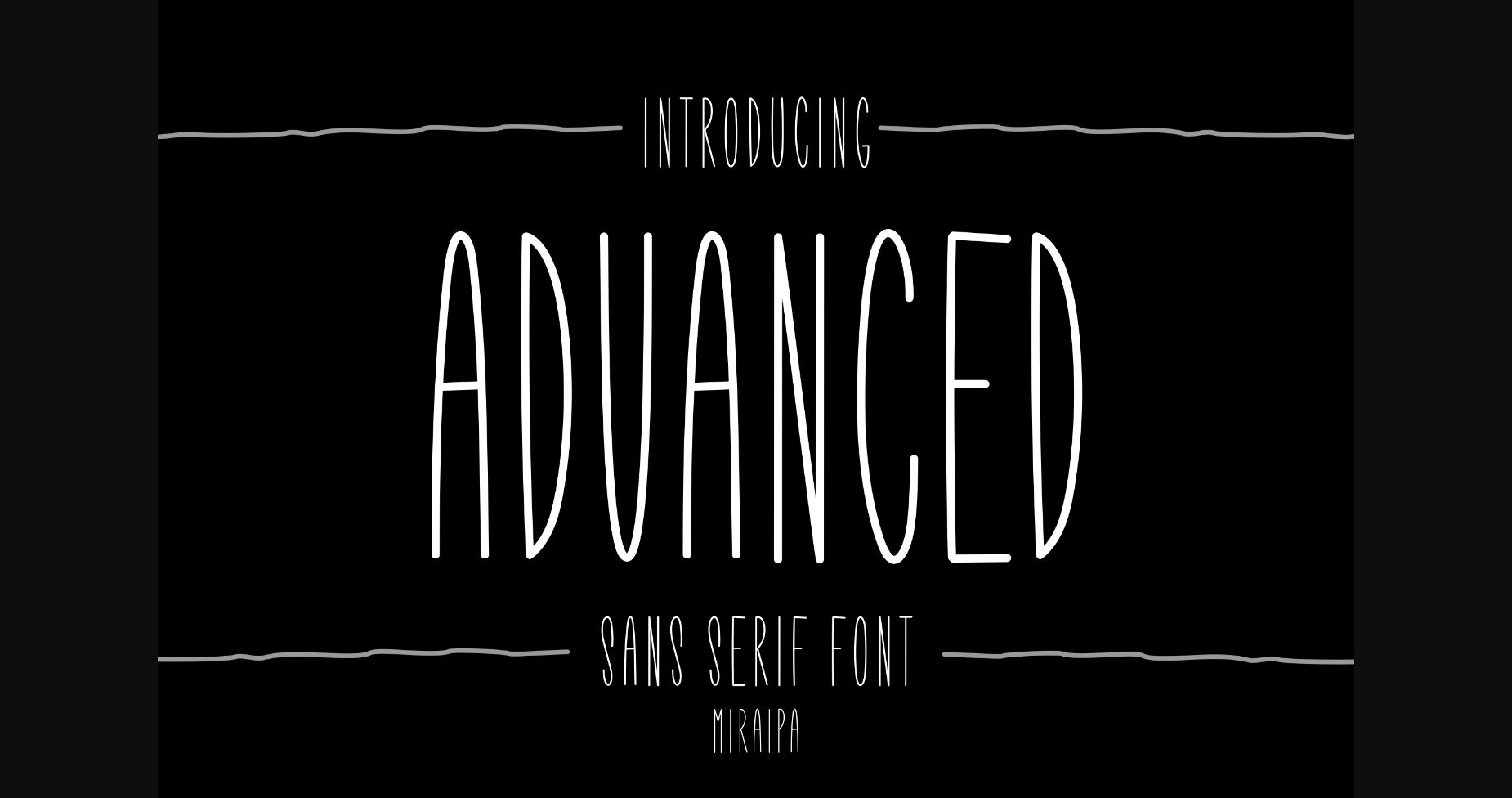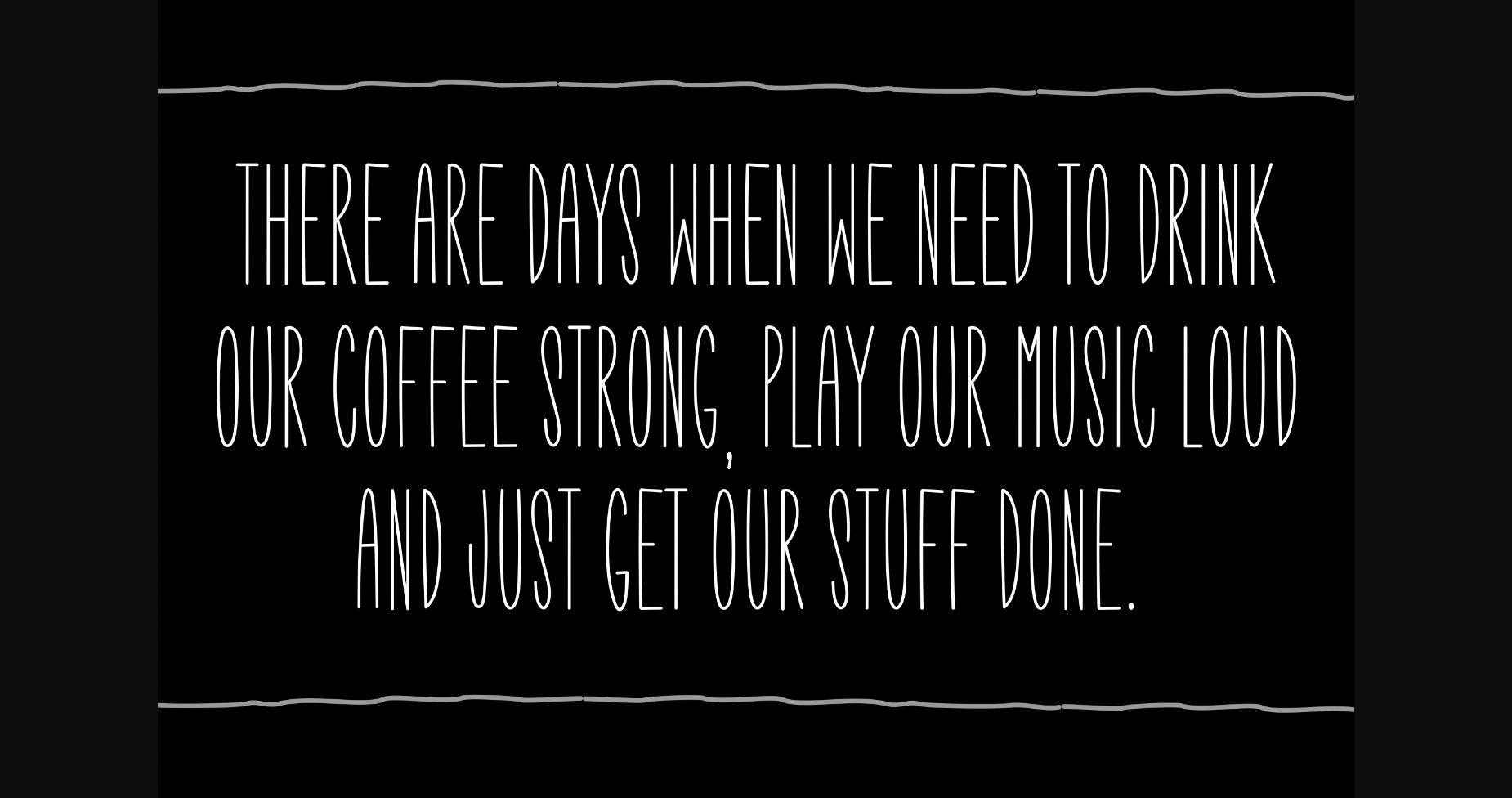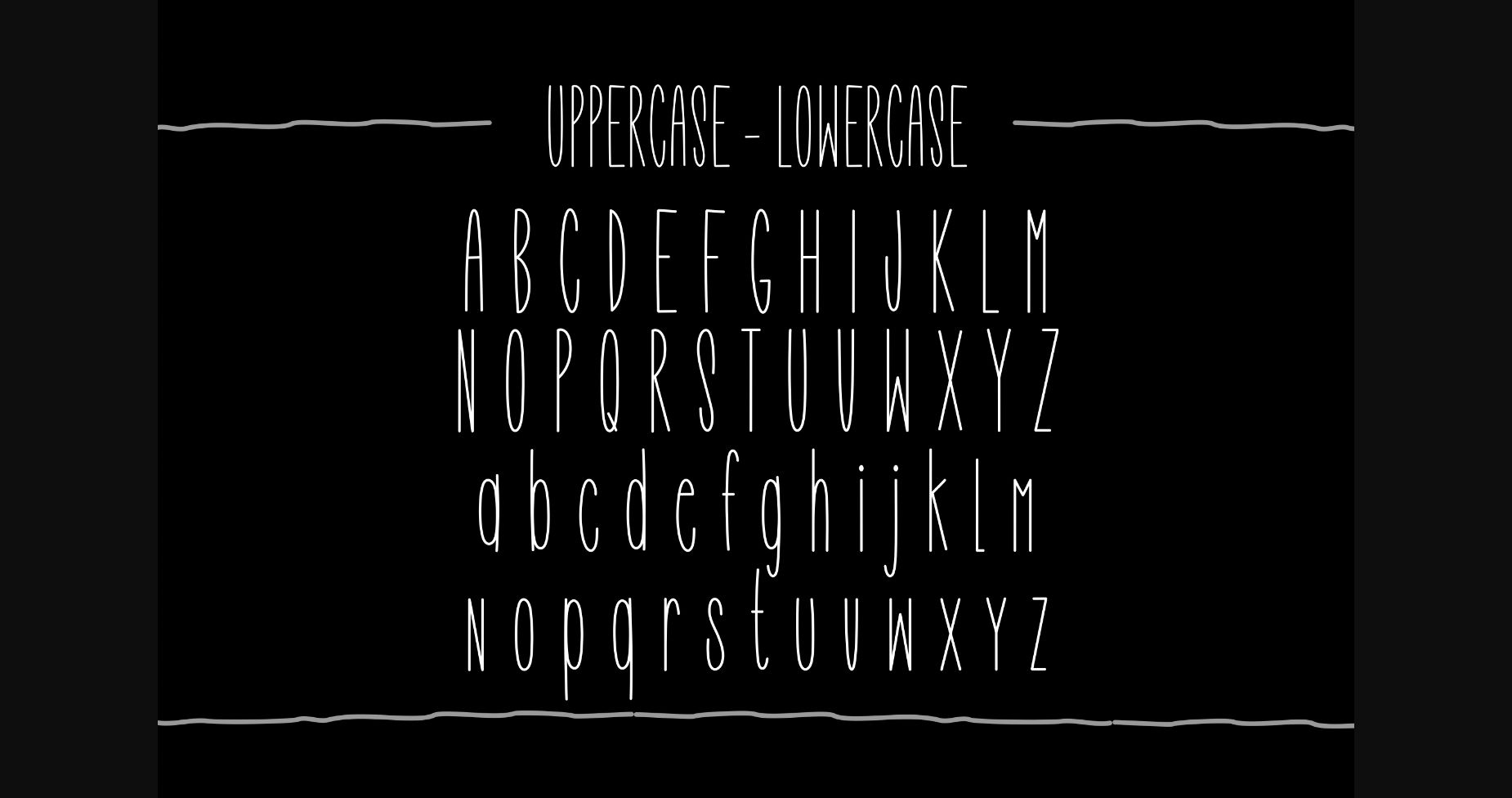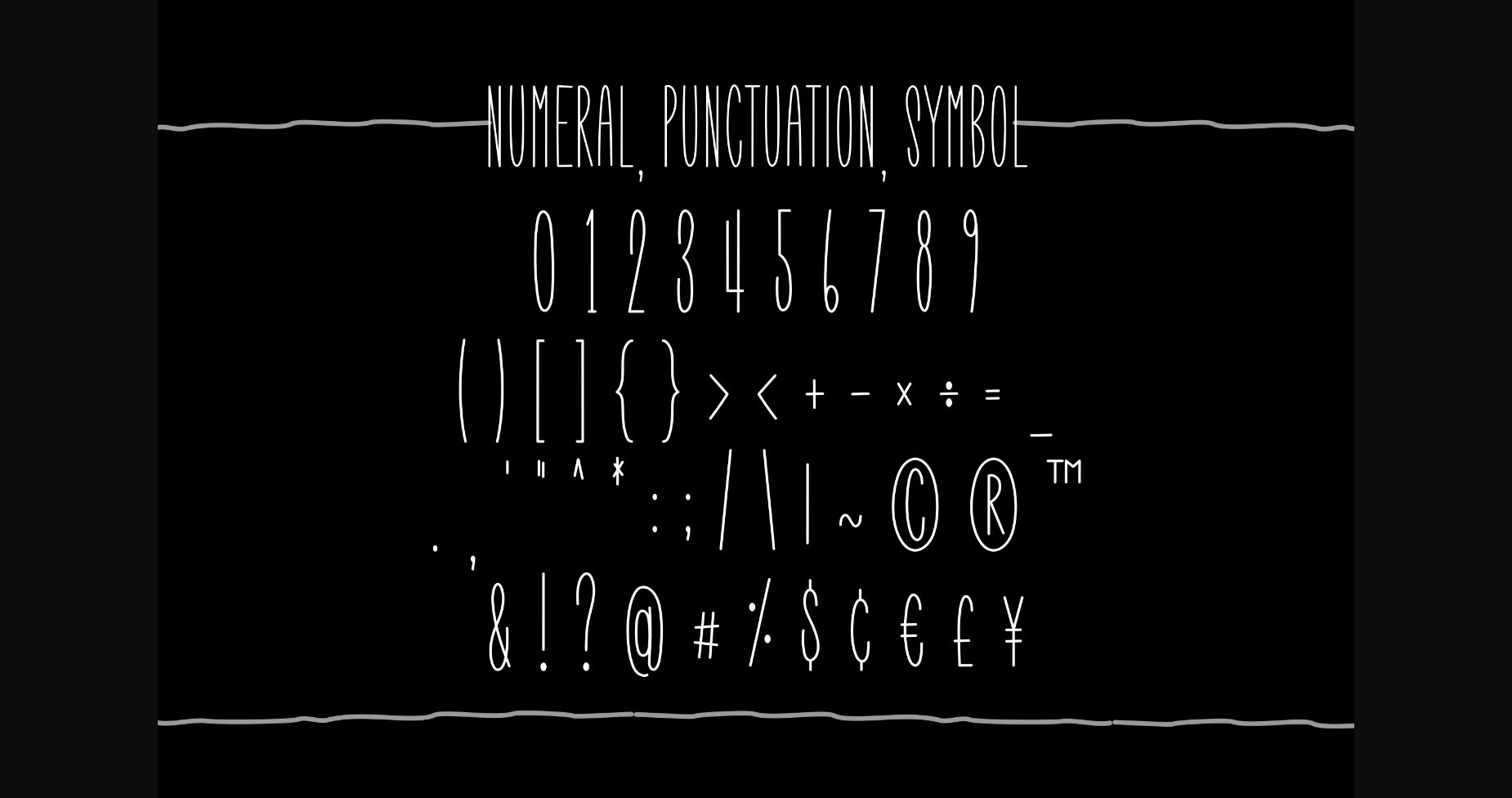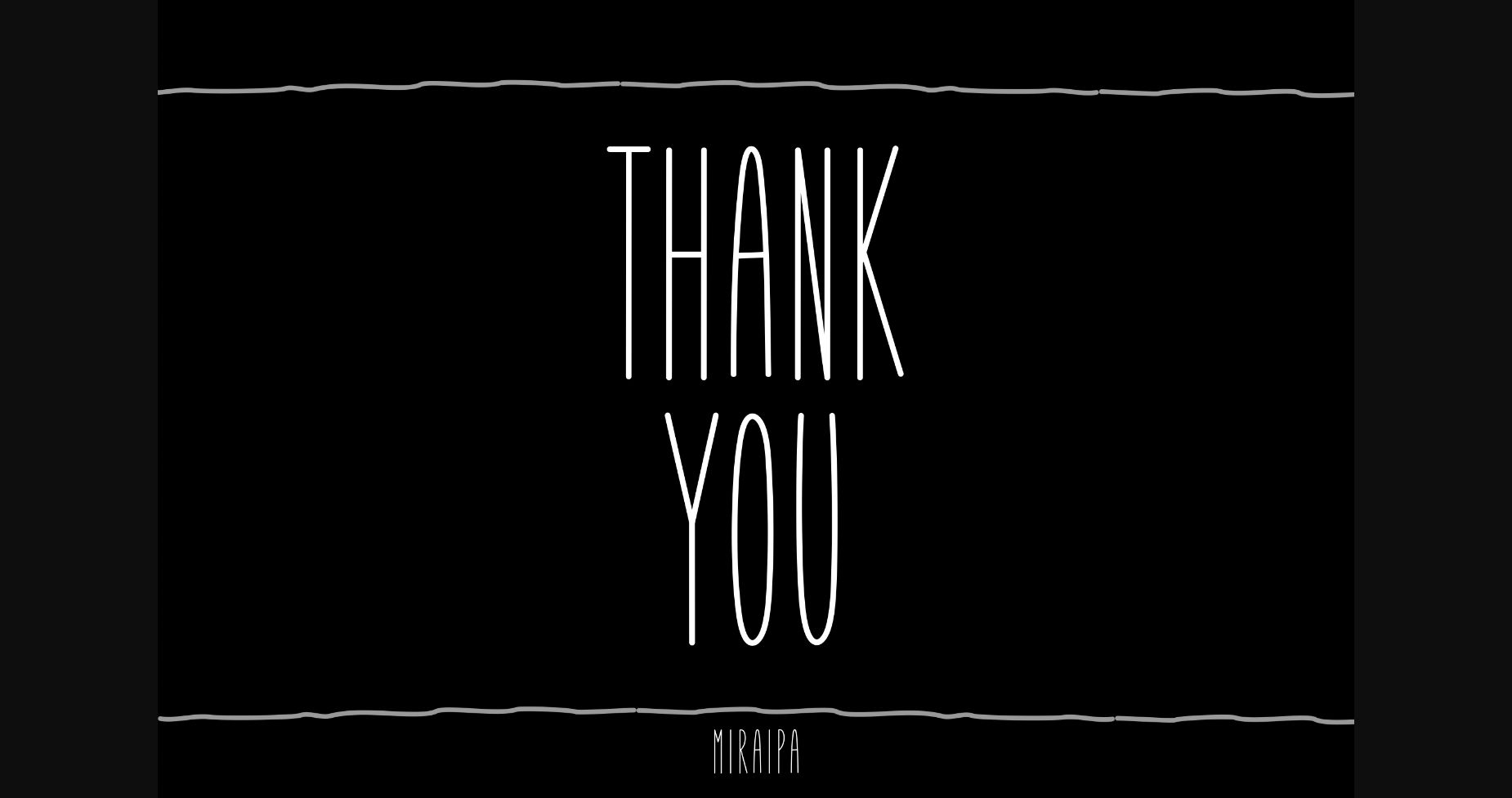
Advanced Font
About Advanced Font
Advanced is designed in a cute and friendly handwritten sans serif font style. It would be awesome for your projects or diary planner.
You can also try it for Easter, back to school, weddings, party decorations, invitations, Fall, Halloween, Christmas, posters, blogs, clothing, child-related designs, greeting cards, social media posts, or anything that needs a friendly touch.